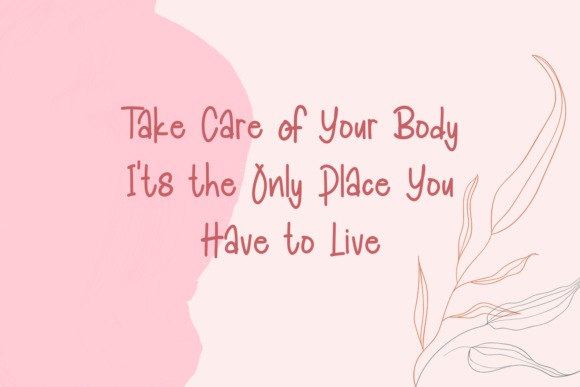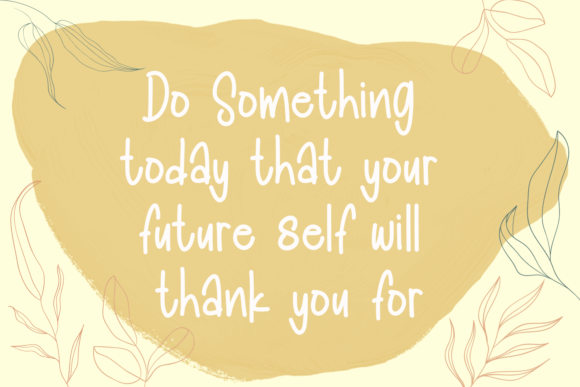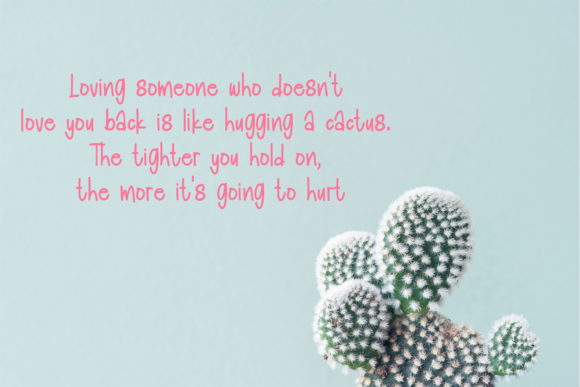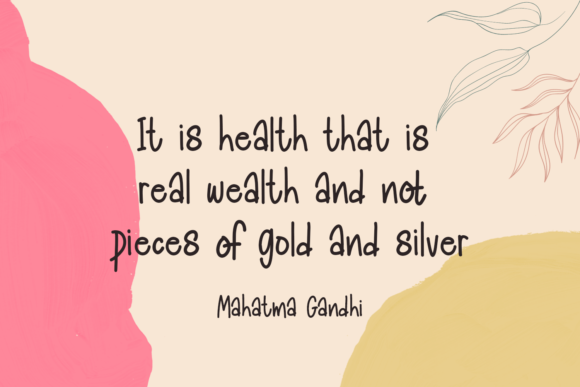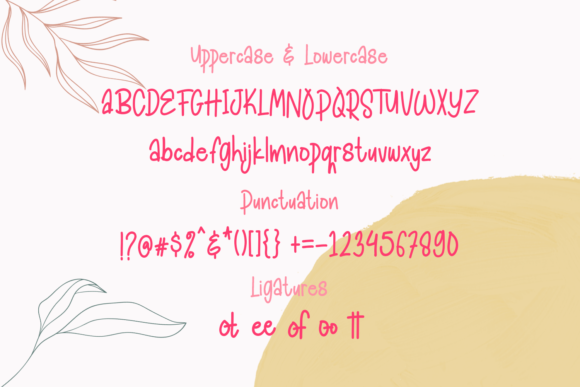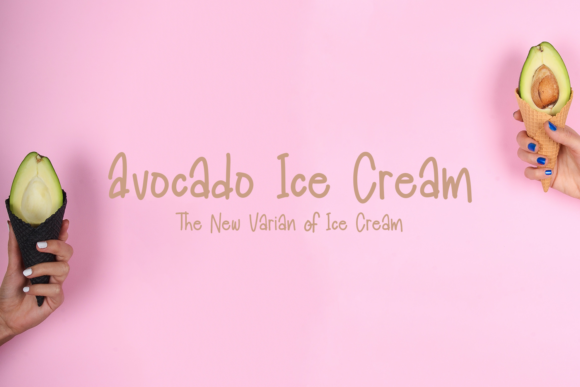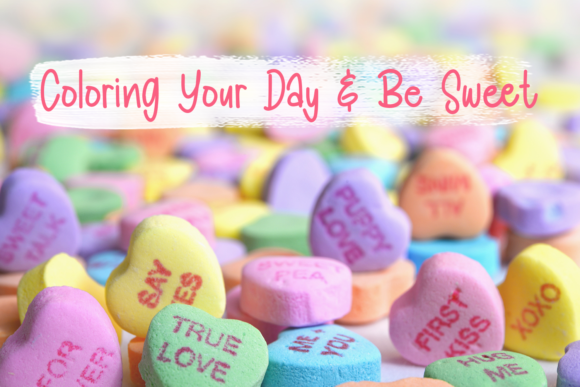
Playful Mono Font
About Playful Mono Font
Playful Mono is a sweet and whimsical handwritten font. It is the best choice for creating eye catching logos, branding and quotes. Every letter has a unique and beautiful touch, which will make your design come alive!